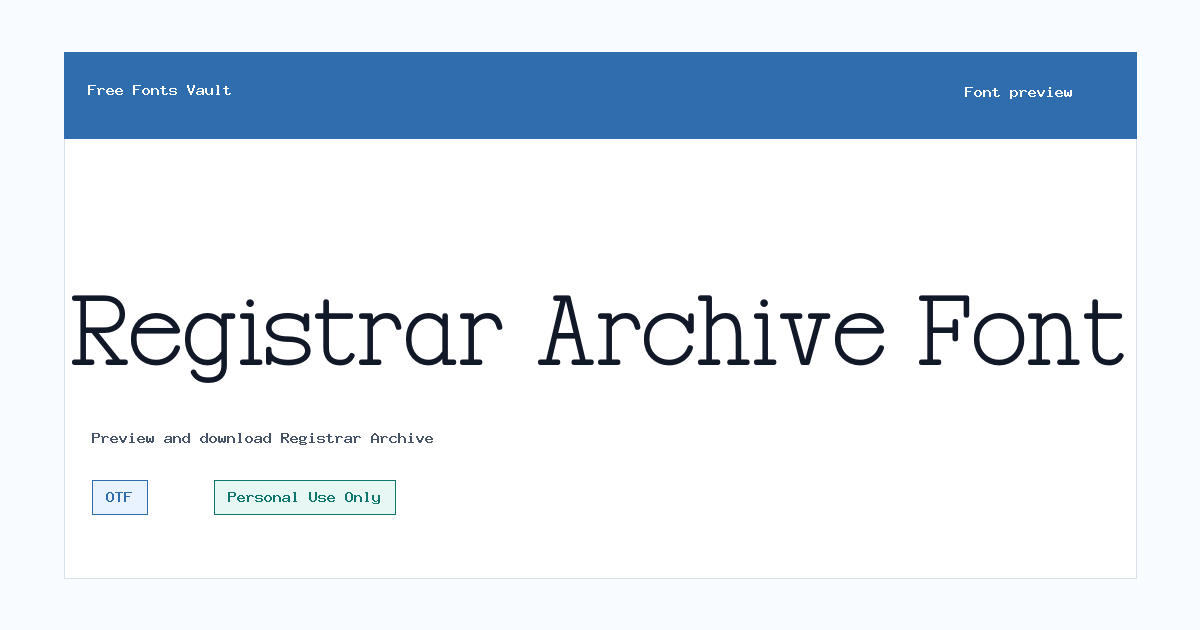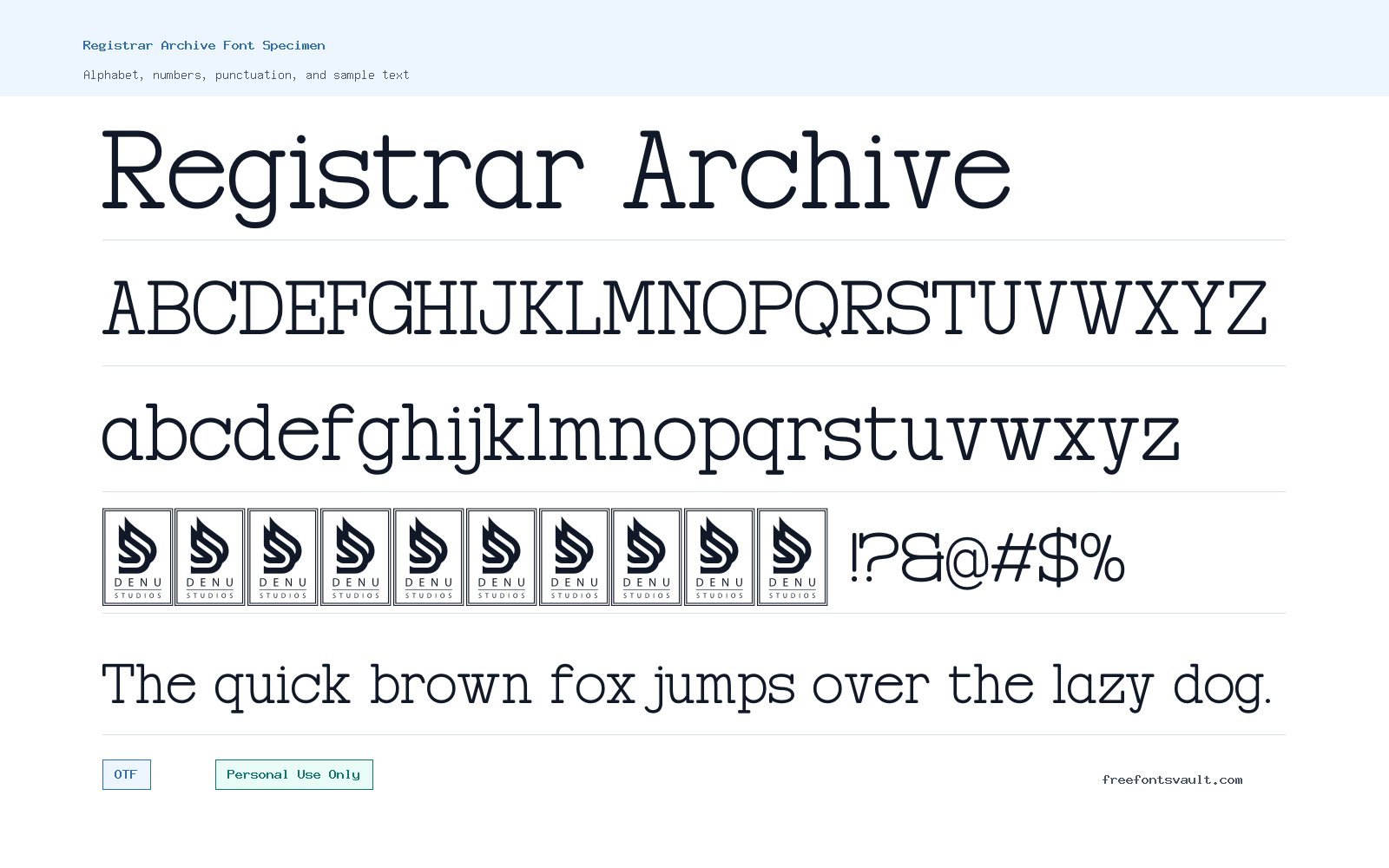
Registrar Archive
- Designer Dede Nugraha
Registrar Archive font.
Registrar Archive is a typewriter-style serif font with a practical display feel, made for short text that needs a worn, editorial, or archive-inspired look. It is best tested in headings, labels, quote graphics, and logo drafts rather than long reading passages.
About Registrar Archive Font
Registrar Archive works as a compact display font for projects where a regular serif feels too clean and a script font feels too decorative. Its typewriter direction gives words a more tactile tone, while the serif structure keeps the letters grounded enough for clear short phrases. That makes it useful for poster titles, book-cover concepts, vintage-style labels, greeting cards, watermarks, name cards, and branding sketches where the text needs character without becoming hard to read. The available file is an OTF font in a regular 400 style, so it is simple to install and test in common design apps.
Use Registrar Archive where the message is short and the font can be part of the visual mood. It can work well for a logo concept, café-style packaging draft, quote card, shopping bag mockup, social graphic, mug design, or invitation headline. For web mockups, try it as a hero title or section heading, then pair it with a plain sans serif for menus, buttons, and body copy. Because only one regular style is listed, build contrast with size, spacing, color, and layout rather than relying on bold or italic companions. If a design needs small paragraphs, legal text, or dense product details, use Registrar Archive sparingly and let a cleaner companion font handle the reading work.
- Typewriter-style serif look suited to short display text, labels, quote graphics, posters, and branding drafts.
- Logo drafts, badges, packaging concepts, book covers, greeting cards, quote posters, and vintage-inspired labels.
- Web mockups that need a distinctive headline font paired with a clean sans serif for readable interface text.
Registrar Archive is credited to Dede Nugraha. The designer link points to GraceType Studio, a font studio and marketplace that offers multiple font styles and license options.
Who designed Registrar Archive?
Registrar Archive is credited to Dede Nugraha, with the designer website listed as GraceType Studio.
What kind of font is Registrar Archive?
Registrar Archive is presented as a typewriter-style serif font. It suits short display uses such as logos, posters, labels, cards, packaging concepts, quotes, and book-cover designs.
What should I pair Registrar Archive with?
Pair it with a simple sans serif or clean text serif. Let Registrar Archive handle the headline, logo wordmark, or label text, and use the companion font for paragraphs, navigation, captions, and product details.